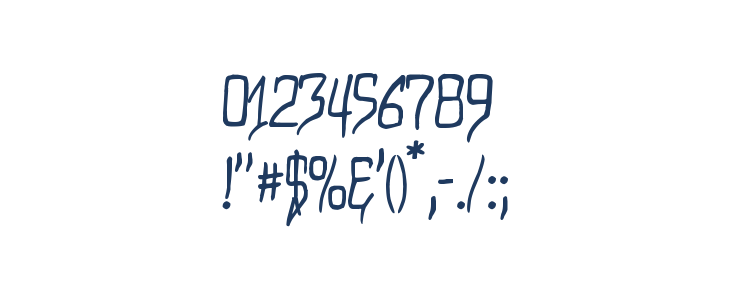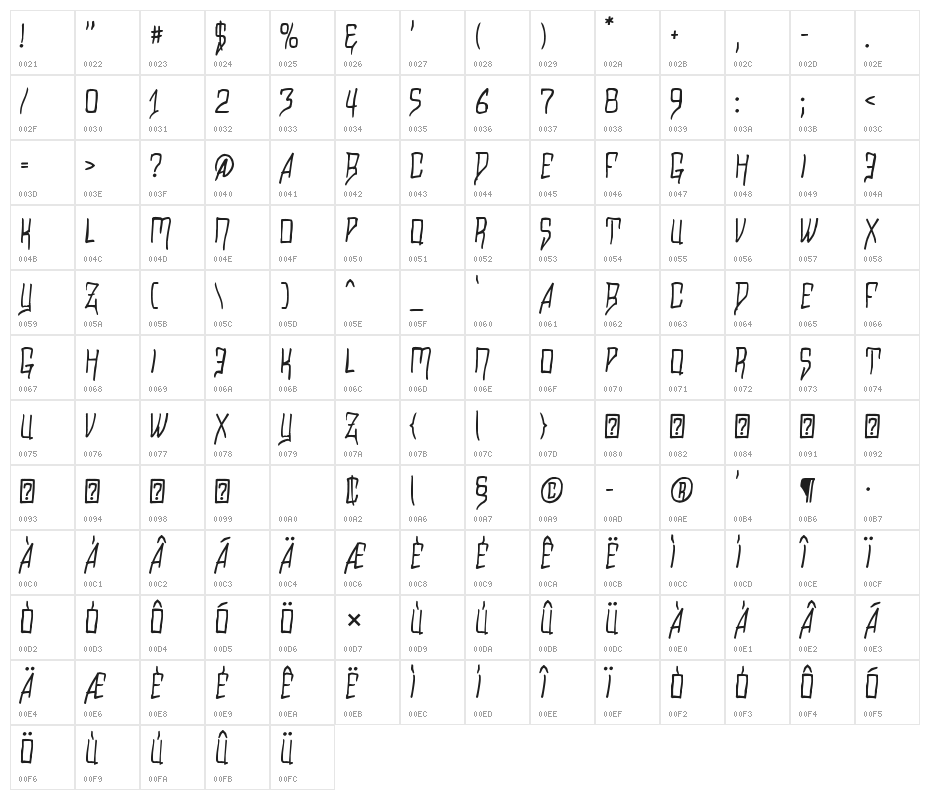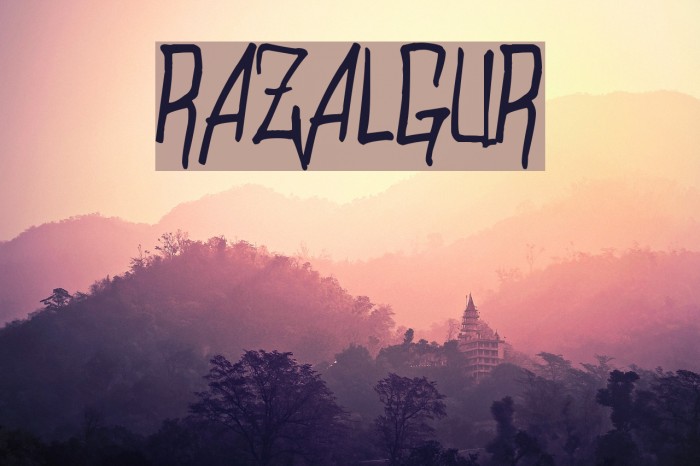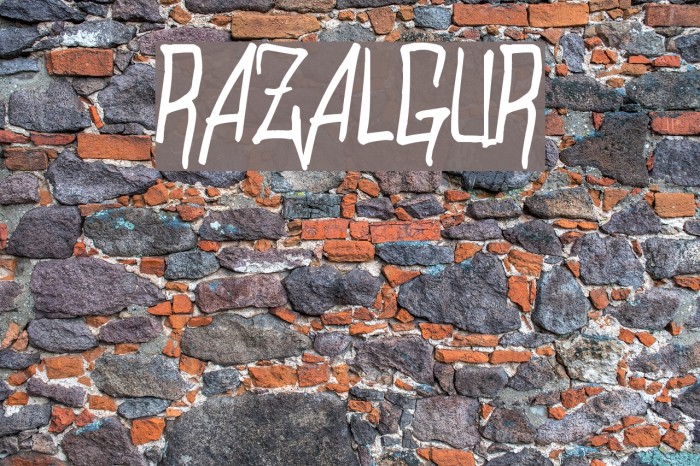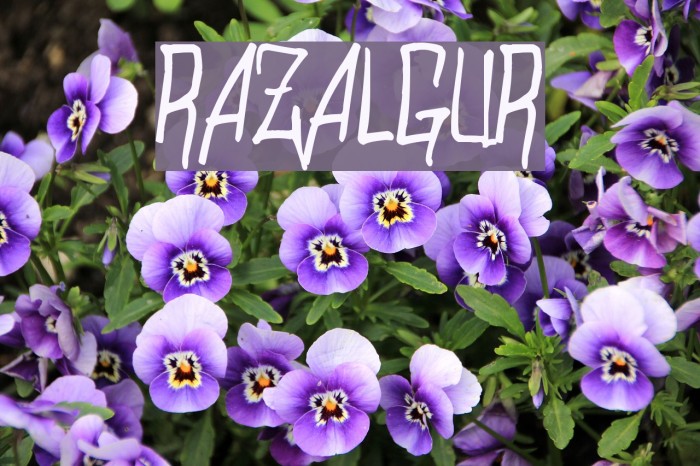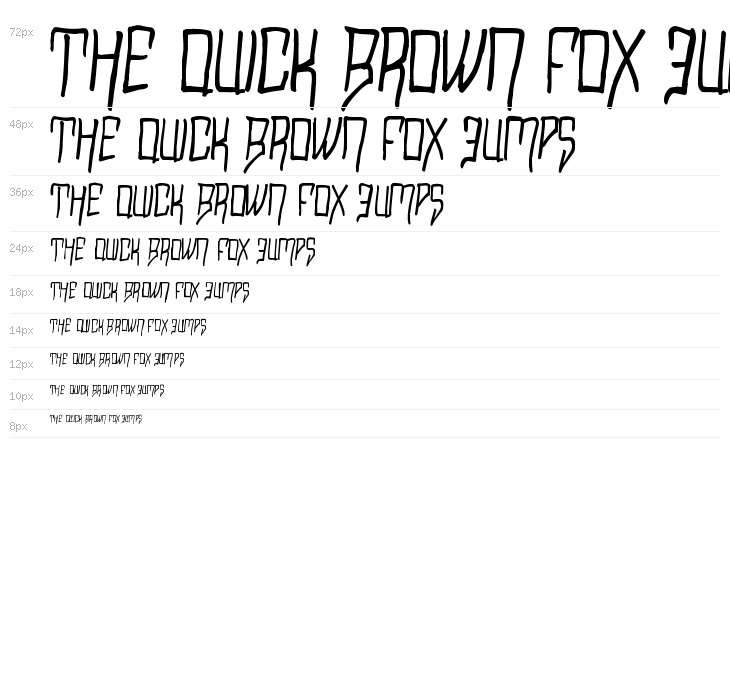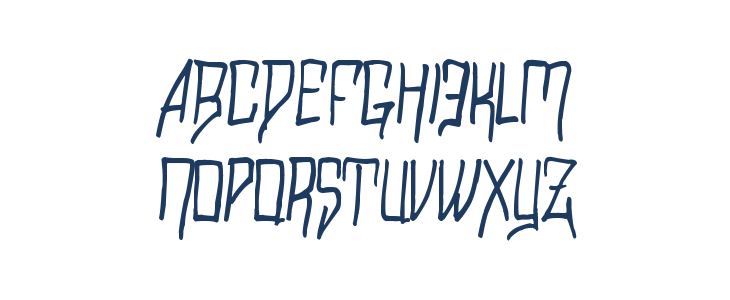
Razalgur Font
Razalgur Description
This font features a distinctive, hand-drawn style with elongated and slightly irregular letterforms, giving it a unique and artistic appearance. The characters have a playful yet edgy feel, with varying stroke thickness that adds to its dynamic look. The uppercase and lowercase letters maintain a consistent style, while the numerals and special characters complement the overall design. This font's quirky and informal nature makes it stand out, perfect for creative projects that require a touch of individuality.
Use CaseLogos, Posters, Creative projects
Proposed ProjectsIdeal for posters, album covers, artistic branding, and creative invitations.